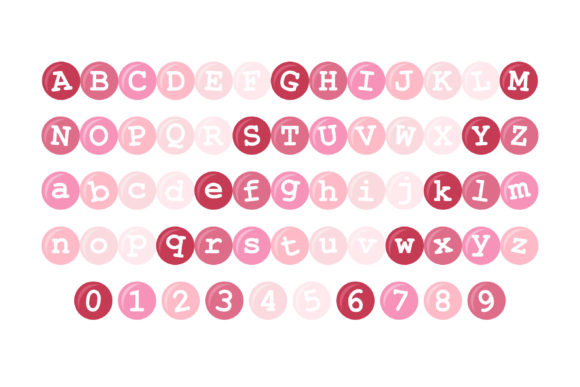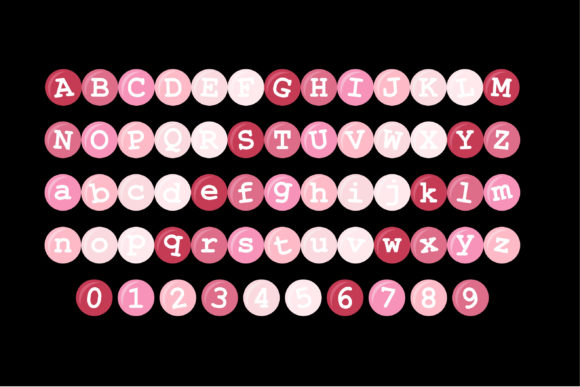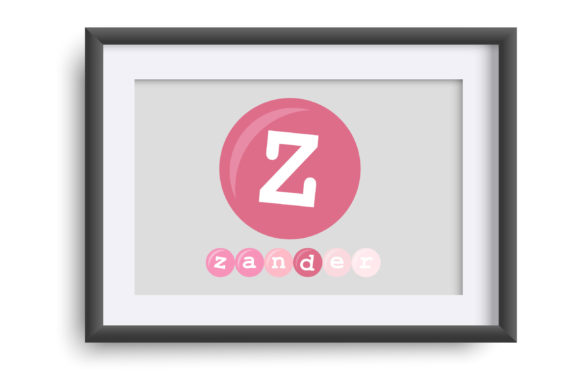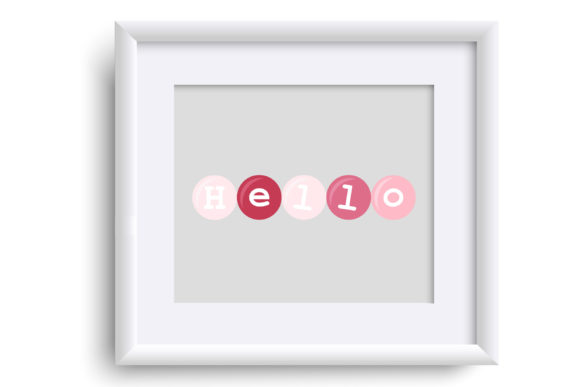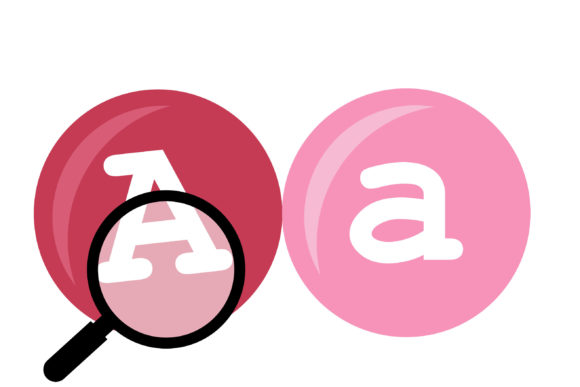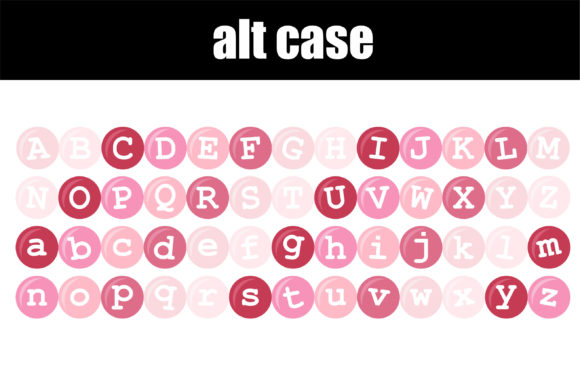
Valentine M’s Font
About Valentine M’s Font
Valentine M’s is indeed a complex and cool color font that brings a creative and whimsical touch to your designs. With its mixed lettering styles and vibrant red/pink color palette, it adds a romantic and playful vibe to any project.
The font’s unique style and attention to detail make it fitting for a wide range of designs, particularly those related to Valentine’s Day, love, romance, and celebrations. Whether you’re designing greeting cards, invitations, posters, or social media graphics, Valentine M’s can enhance your creations with its charming and eye-catching letters.
One of the advantages of Valentine M’s is its PUA encoding, which allows easy access to all the glyphs and swashes. This means you can explore and utilize the various decorative elements and alternative letterforms effortlessly, adding even more versatility to your designs.
So, let your creativity flow and take advantage of Valentine M’s unique style and color palette. Explore the different glyphs and swashes to customize your designs and create captivating visuals that evoke a sense of love and whimsy. Valentine M’s is a font that will undoubtedly make your projects stand out and leave a lasting impression.